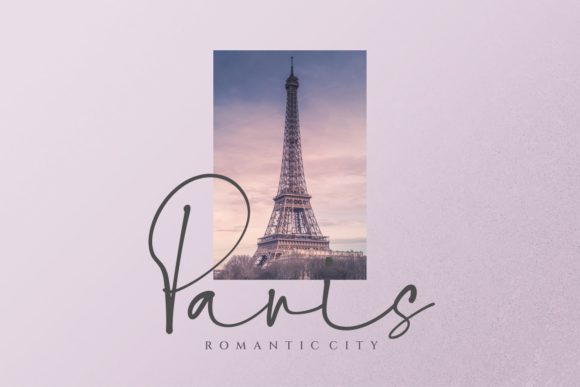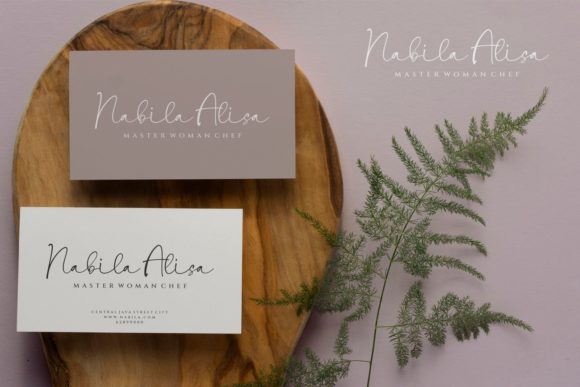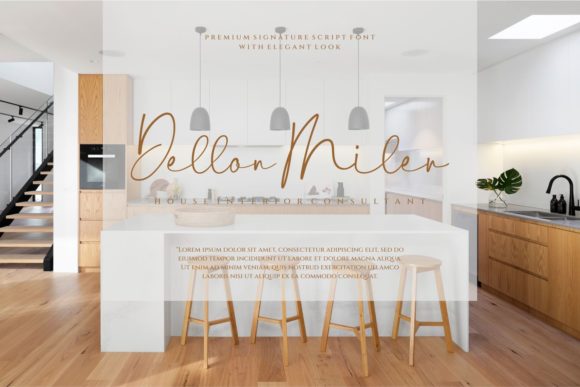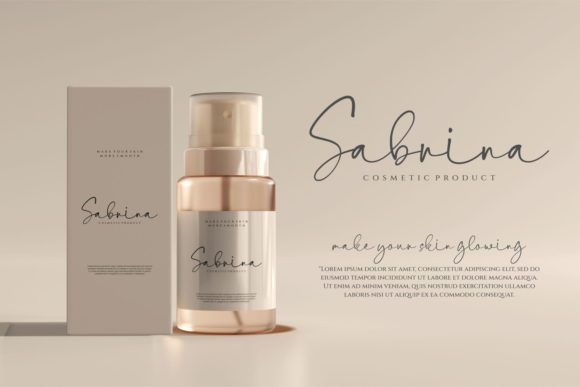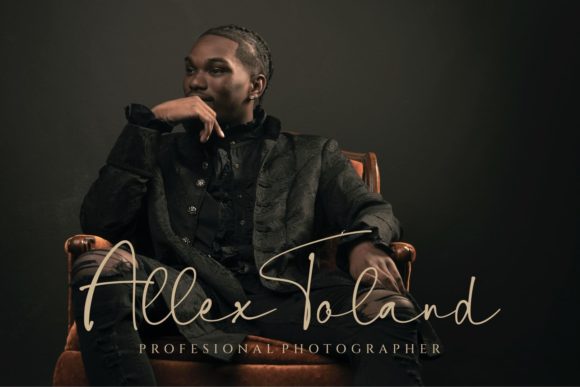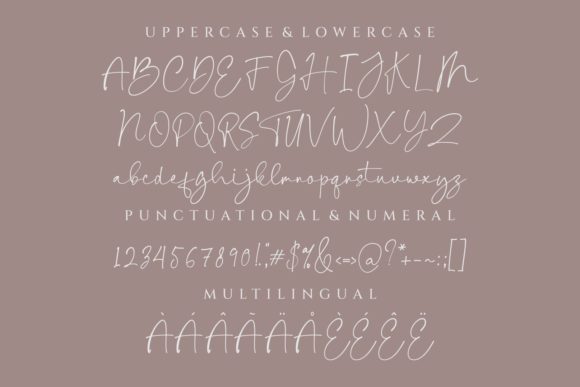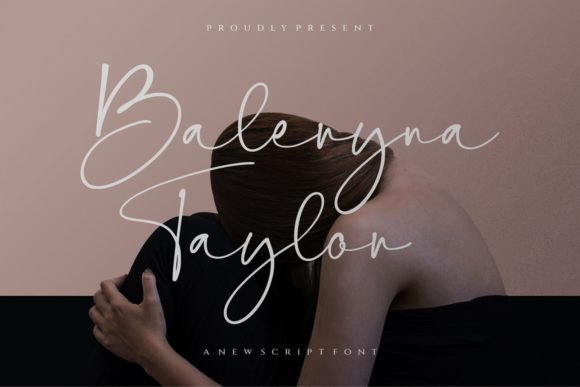
Discover the Elegance of Baleryna Taylor Font
Have you ever been stuck in a design rut, searching for that perfect font to elevate your project from ordinary to extraordinary? I know I have. Sometimes, all it takes is one glance at a beautiful script font to spark a creative moment that sets our imagination ablaze. For me, that moment came when I stumbled upon the lovely Baleryna Taylor Font.
Baleryna Taylor Font is a delicate script font designed to add a touch of elegance and class to any design. Crafted with precision and care, this font is perfect for those seeking a beautiful and refreshing look for their projects. Whether you’re a seasoned designer or just starting out, Baleryna Taylor Font is an invaluable addition to your design toolkit.
Baleryna Taylor Font Key Features
- Font Family: Baleryna Taylor Font is a custom, handwritten script font designed specifically for personal and commercial use.
- Unique Characteristics: This font features elegant, flowing lines and subtle imperfections, giving it a unique, hand-written feel.
Designer Review: Baleryna Taylor Font
Overall, I was quite impressed with the Baleryna Taylor Font. ✨ The font’s elegant and whimsical feel makes it perfect for any project that requires a touch of sophistication. The letterforms are well-designed, with beautiful flourishes and swashes that add a sense of luxury to any text.
One of the things that stood out to me was the font’s versatility. ✨ It works well in a variety of contexts, from wedding invitations to branding materials. The font’s subtle nuances make it easy to use in a range of applications, from digital to print.
While the Baleryna Taylor Font is a great addition to any designer’s toolkit, there are a few limitations to be aware of: ⚠️
- Some of the letters may not display correctly in certain font sizes or resolutions.
- The font may not be as readable in text-heavy applications.
- The font is not suitable for use in bold or italic contexts, as the letterforms can become distorted.
Overall, I would highly recommend the Baleryna Taylor Font to designers looking for a high-end, elegant font. While it may have a few limitations, the font’s beauty and versatility make it well worth the investment.
3. Baleryna Taylor Font is ideal for creating elegant and sophisticated designs, making it perfect for wedding invitations, event branding, and luxury product designs.
4. Baleryna Taylor Font is ideal for creating high-end designs, making it perfect for corporate branding, magazine layouts, and advertising materials.
4. Baleryna Taylor Font is ideal for creating professional and elegant presentations, making it perfect for business pitches, reports, and proposals.
Some tips for getting the most out of the Baleryna Taylor Font include:
– Using it sparingly to create a sense of luxury and sophistication.
– Pairing it with other elegant fonts to create a cohesive design.
– Using it for headings and titles to create a clear hierarchy of information.
– Using it for event branding, wedding invitations, corporate branding, and high-end product designs.